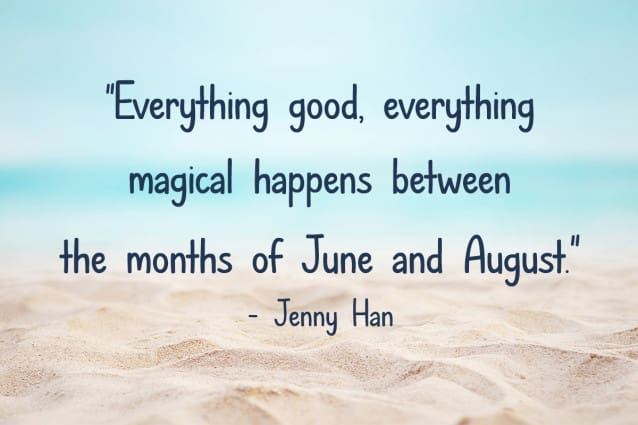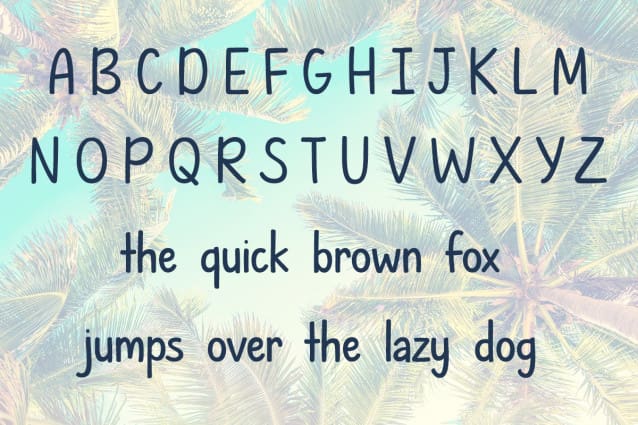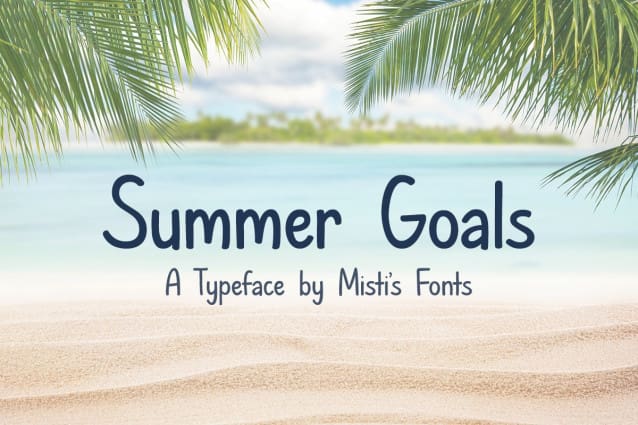
Summer Goals Font
Summer Goals Font, a charming and simple handwritten font that captures the essence of sunny days and carefree moments. Perfect for adding a personal touch to your projects, this versatile typeface is ideal for invitations, social media graphics, and more. Let your creativity shine!